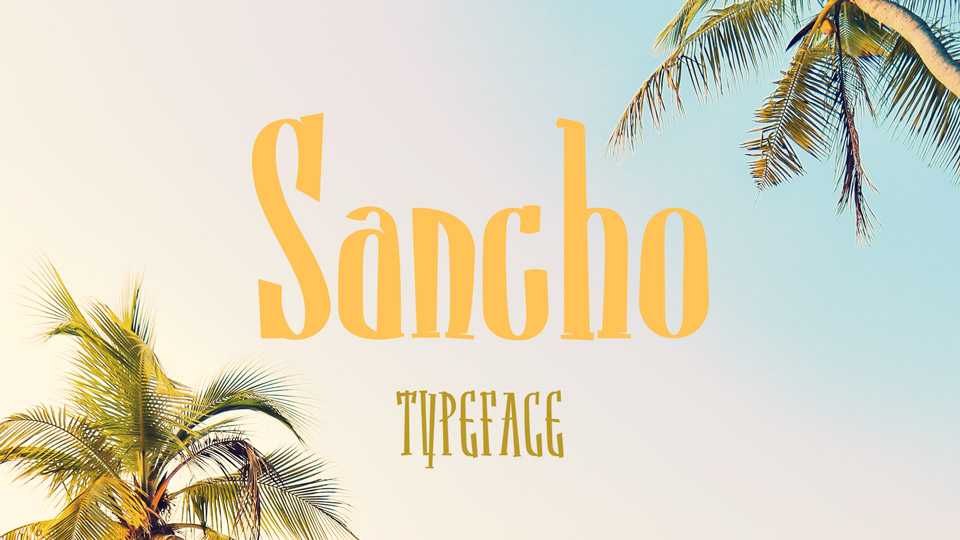
Download Sancho typeface, a funny and cute handwritten font in Regular and Bold weights. Sancho font is perfect for crafts, summer graphics, kids products, comics, games, t-shirt prints and other creative projects.
Designer: Michael Schinköthe